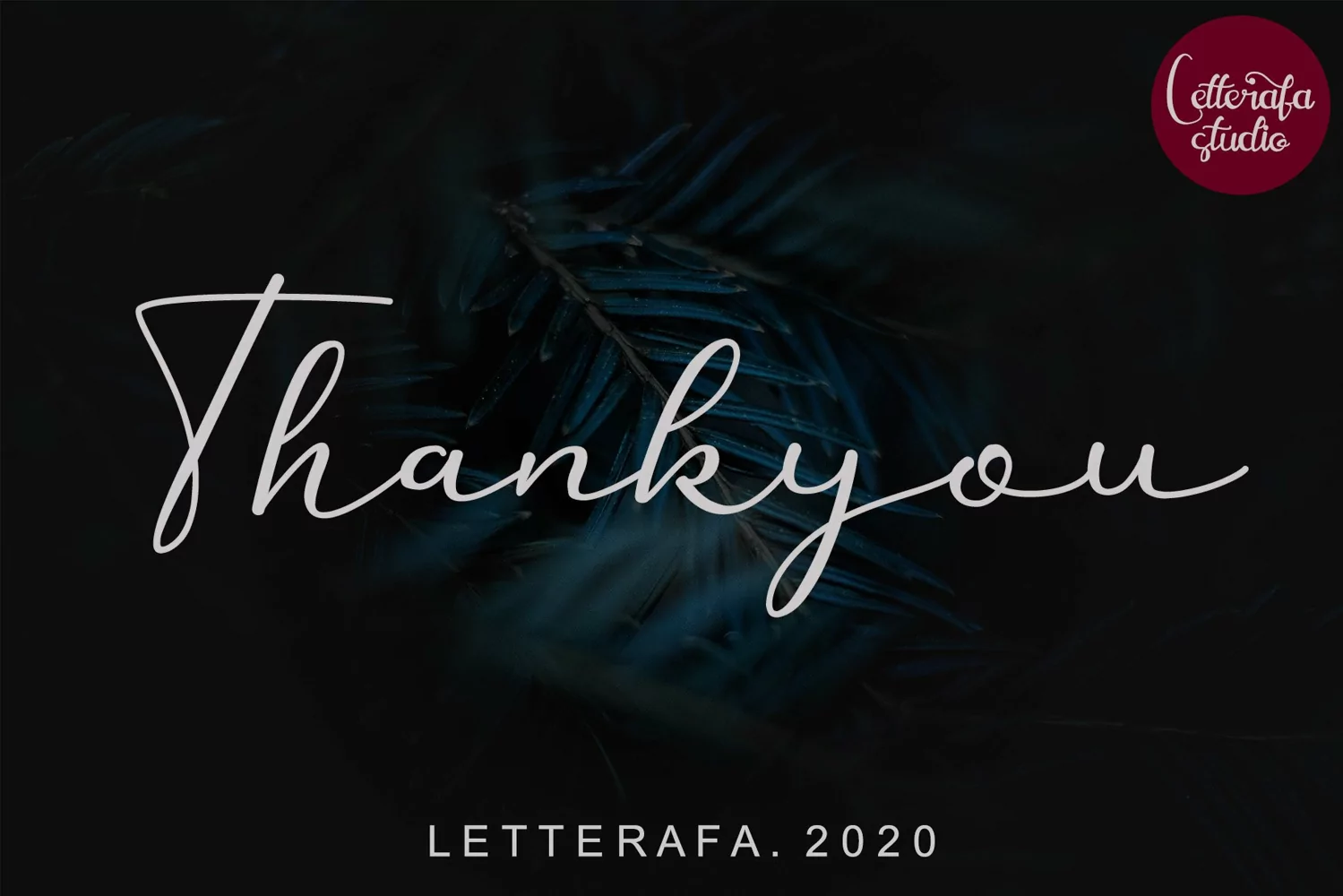
Beautiful Handwritten
Geollitta is a modern handwritten font by Letterafa. It has flowing letters that will give your designs a unique and sweet look. Geollitta is perfect; greeting cards, a package design, a brand identity, craft design, any DIY project, book title, wedding invitation, packaging, and more.